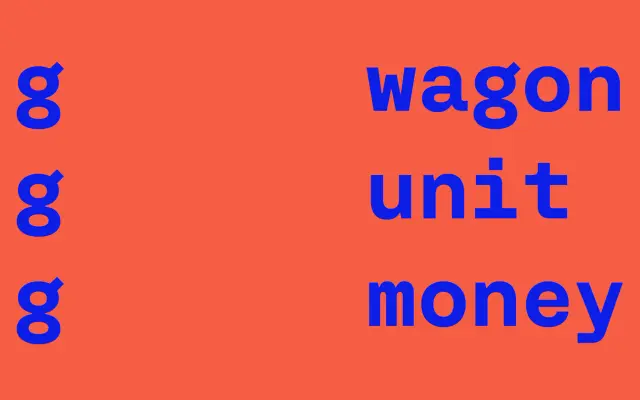
F37 Zagma Mono
F37 Zagma Mono specimen from F37 Foundry
The fixed-width companion to F37 Zagma, with eight styles across four weights for code, data and editorial use.
A monospaced sans by F37 drawn from the F37 Zagma system. Eight styles span four weights from Light to Bold with matching italics, keeping the parent family's geometric-grotesque hybrid voice on a fixed-width rhythm. Reach for it in editorial captions, technical documentation, data tables and brand systems that already use F37 Zagma and want a coordinated mono. Pairs naturally with F37 Zagma, F37 Zagma Serif and F37 Zagma Text.
The monospaced companion to F37 Zagma, keeping the hybrid geometric-grotesque drawing on a fixed-width grid for code, data and editorial typography.